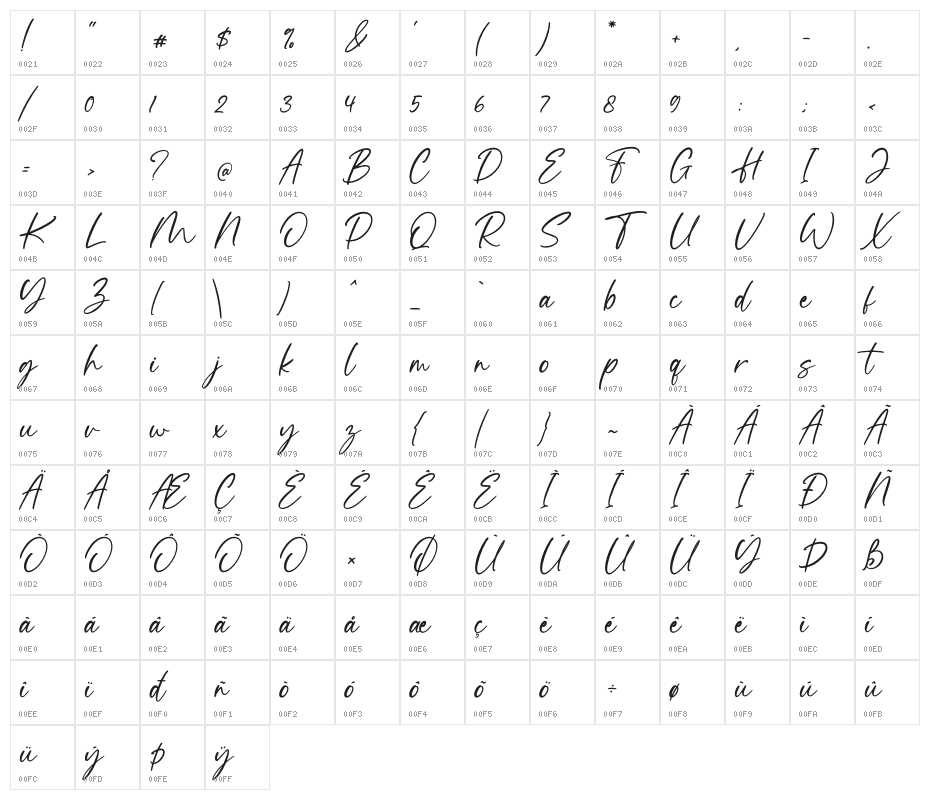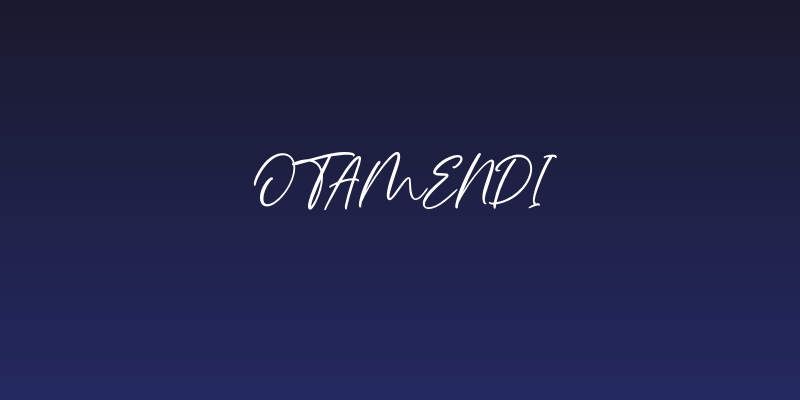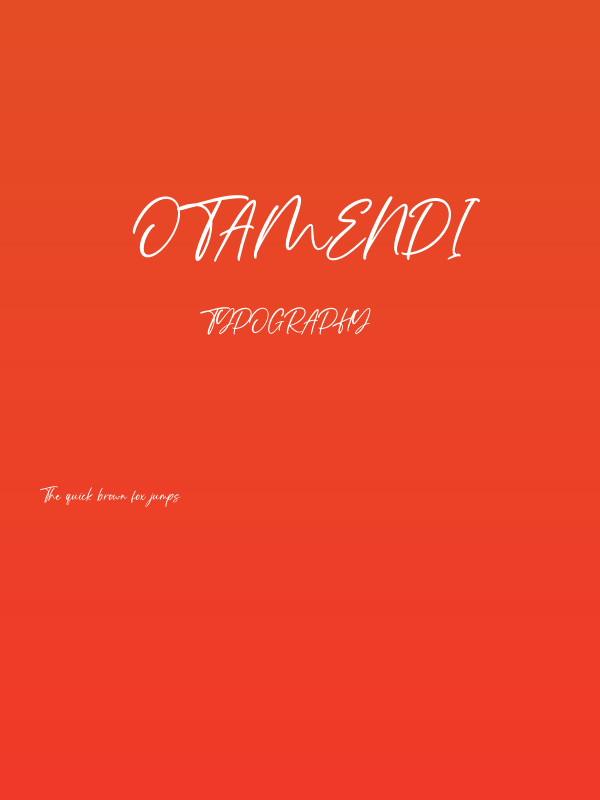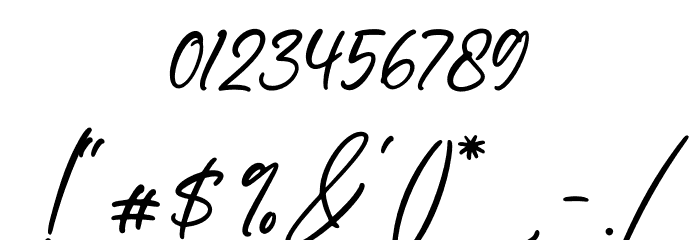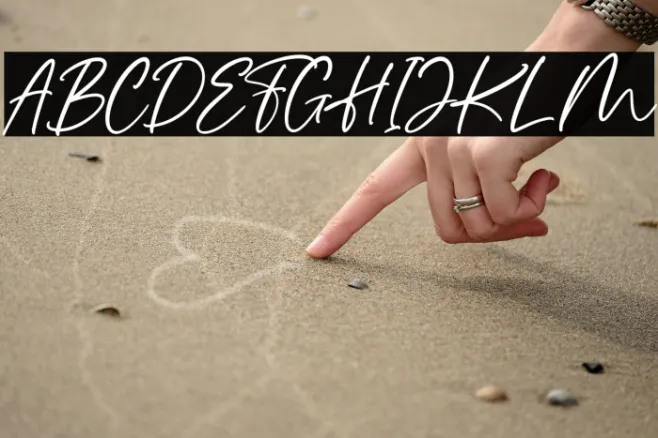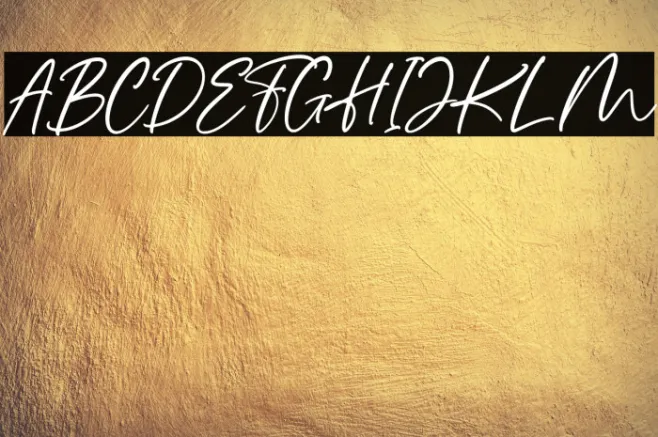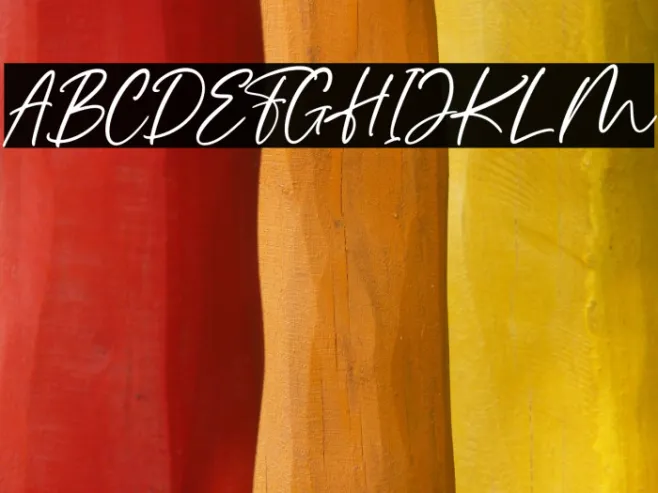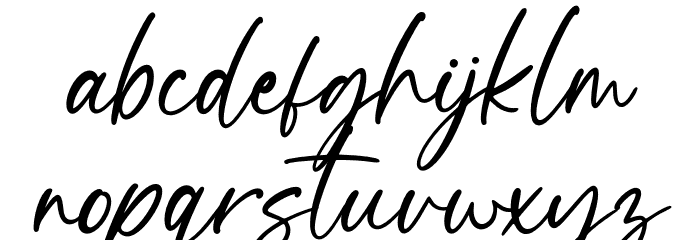
Otamendi Font
Otamendi Description
This font exhibits a dynamic and fluid script style, characterized by its elegant and flowing cursive letters. The uppercase and lowercase letters are seamlessly connected, creating a sense of movement and grace. The strokes are smooth and consistent, with a slight slant that adds to the handwritten feel. The numbers and special characters maintain the same fluidity, ensuring a cohesive look across all elements. This font is ideal for projects that require a personal touch, such as invitations, greeting cards, and branding materials.
| Use Case | Logos, Invitations, Greeting cards |
| Proposed Projects | Ideal for invitations, greeting cards, branding, and personal projects. |